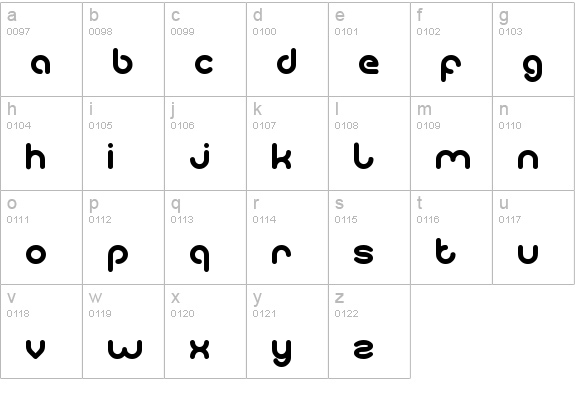
gitchgitch Font Details
Introducing the mesmerizing Gitchgitch font, a stunning typeface that effortlessly captures attention with its unique and captivating design. This font is sure to leave a lasting impression with its intricate details and striking appearance. Gitchgitch font is the perfect choice for those seeking a font that exudes creativity and originality. Its bold and expressive features make it ideal for various design projects, whether it's for branding, advertising, packaging, or any other creative endeavor. With its versatility, Gitchgitch font adapts flawlessly to any context, adding a touch of elegance and sophistication to your work. One of the most remarkable aspects of this font is that it is absolutely free. Yes, you read that right! Gitchgitch font is freely available to download at FontsMarket.com, allowing you to enhance your design projects without any cost. This generous offer allows designers, enthusiasts, and anyone in need of a stunning font to access its beauty and unleash their creativity. With Gitchgitch font, you have the freedom to experiment, explore, and create without limitations. Its extensive character set ensures that your texts will be captivating and captivating, no matter the language or message you wish to convey. The smooth curves and sharp edges of Gitchgitch font create a harmonious balance, resulting in an eye-catching and visually pleasing typography. Whether you're a professional graphic designer or a passionate individual looking to elevate your projects, Gitchgitch font is the perfect tool to add that extra touch of elegance and uniqueness. Its timeless appeal and versatility make it suitable for a wide range of applications, from logo designs to web graphics and everything in between. Download Gitchgitch font for free today at FontsMarket.com and unlock a world of creative possibilities. Embrace the beauty and power of this stunning typeface, and let your designs truly stand out. With Gitchgitch font, you have the freedom to express your creativity and leave a lasting impression on your audience.